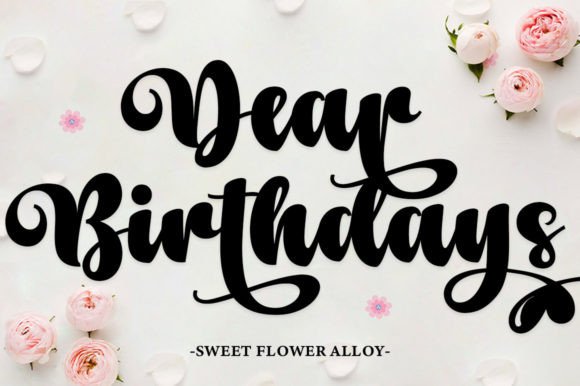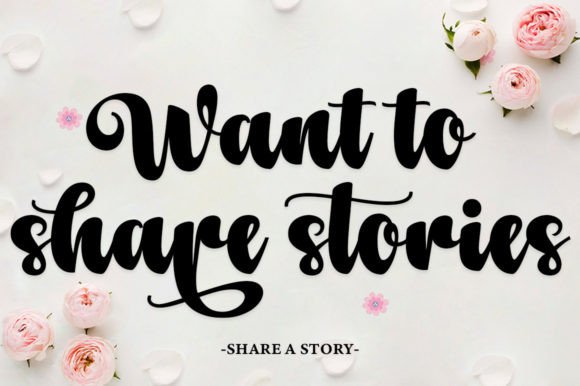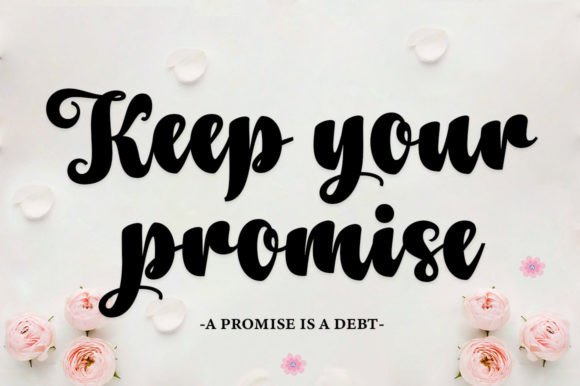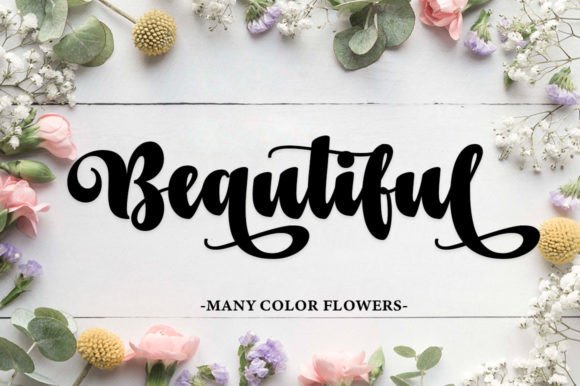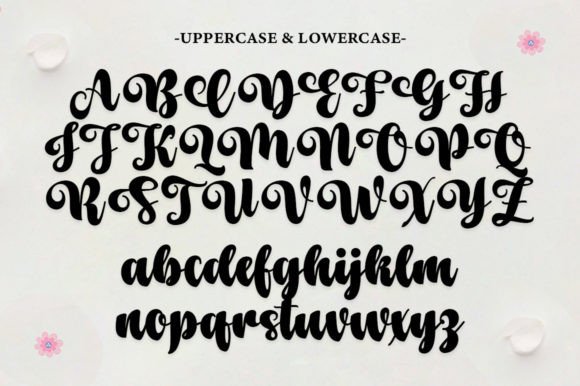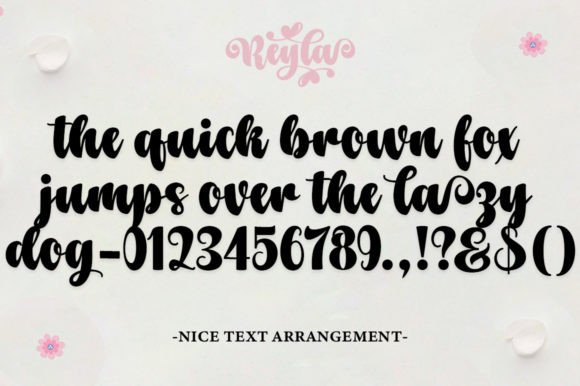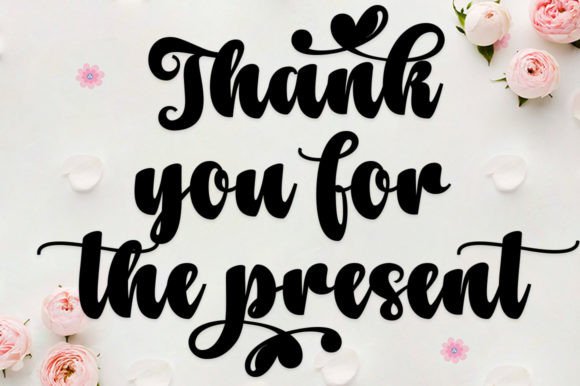
Reyla Font
A Sweet and Flexible Handwritten Script
Reyla is a charming handwritten font created to add warmth, romance, and joy to your projects. Each letter features soft curves and a playful style that feels welcoming and personal. The font’s balanced shapes make it a versatile choice that can adapt to almost any design.
Whether you’re working on branding, invitations, or digital content, Reyla brings a unique and creative touch that makes your words feel special.
Reyla is a flexible font that works beautifully across different design needs. It’s ideal for wedding invitations, save-the-date cards, and event signage. The warm and romantic style helps set the mood for any celebration.
Use Reyla for greeting cards, thank-you notes, and personal stationery. The sweet letterforms make every message feel heartfelt and genuine.
This font is also perfect for logos, business cards, and product packaging. Its casual yet elegant style creates a friendly, memorable brand identity.
Reyla looks fantastic on social media graphics, Pinterest pins, and blog headers. The jolly style helps your content stand out in busy feeds while keeping it approachable.
Clear, Friendly, and Easy to Read
Even with its handwritten, decorative look, Reyla remains clear and easy to read in any size. Balanced spacing between letters keeps your text neat and professional, whether you’re designing big headlines or small labels.
Many designers pair Reyla with a clean sans-serif font to create contrast. Use Reyla for titles and the sans-serif for supporting text. This combination guides the reader’s eye and keeps layouts feeling modern and organized.
To bring out Reyla’s warm character, use soft backgrounds and romantic color palettes. Shades like blush, ivory, and pastel tones allow the letterforms to shine without distraction.
When designing wedding materials or personal branding, consider adding delicate illustrations or watercolor textures. These touches enhance the font’s sweet, heartfelt mood.
For social media posts and packaging, keep layouts simple so the typography remains the focus of the design.
Think about the mood you want to share. Reyla is perfect for designs that should feel joyful, romantic, and full of personality.
Reyla is more than just a sweet script font. It’s a creative tool that transforms ordinary words into something memorable and special. Its clean curves and warm details bring beauty and authenticity to any project.
Adding Reyla to your font collection gives you a reliable choice for all types of creative work. From weddings and social media to branding and packaging, this font adapts effortlessly to your ideas.